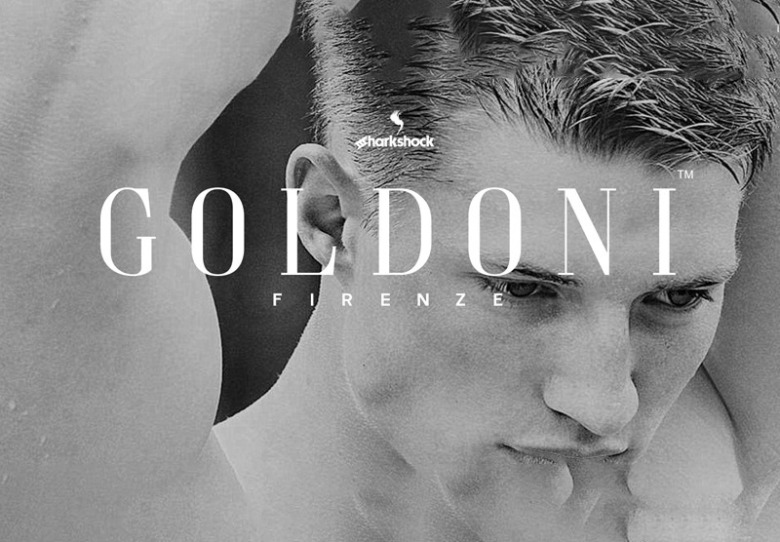
Goldoni Font
Goldoni Serif Font was crafted with a classic ultra clean appearance that has been extensively spaced to show contrast between the thin line spacings and characters. Goldoni may be used for a luxury logo, a newspaper headline, and more. Goldoni includes basic and extended latin / numbers / punctuation, European accents, diacritics, alternates, and kerning in the full version.
Goldoni Serif Font